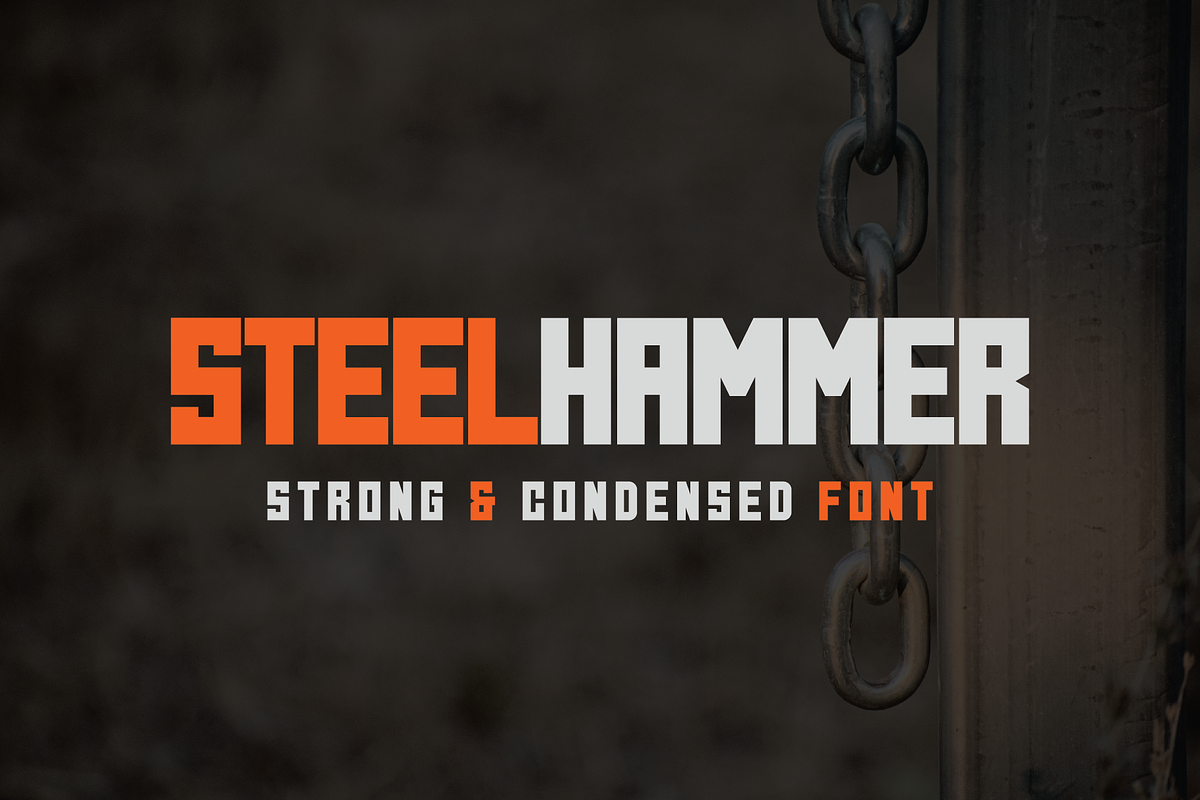
Steel Hammer Bold Condensed Font Free Download is a strong, impactful typeface that features a bold condensed design. With its sturdy, geometric shapes and high contrast, this font is perfect for creating powerful headlines, posters, logos, and branding projects that need to make a statement.
The condensed nature of Steel Hammer Bold Condensed Font Free Download ensures that it works well in tight spaces while still maintaining strong legibility. Whether you're working on an industrial design, a sports brand, or an action-packed event poster, this font adds a sense of strength and authority to your typography.